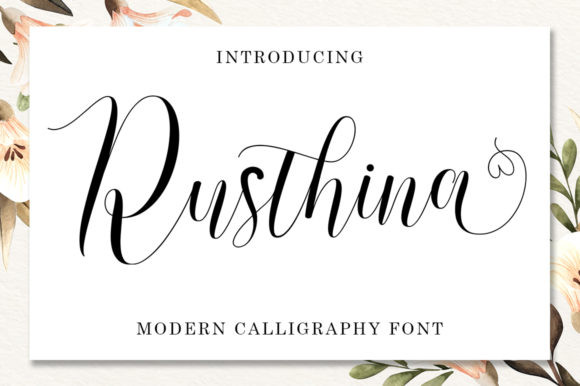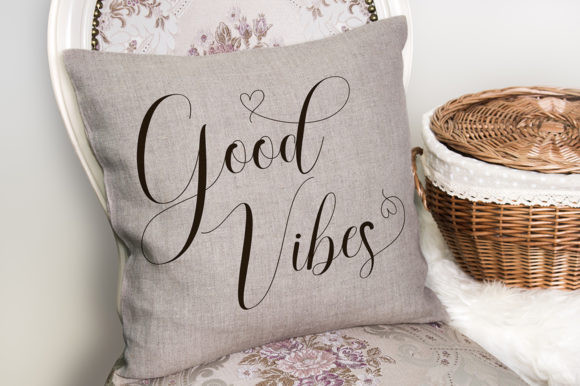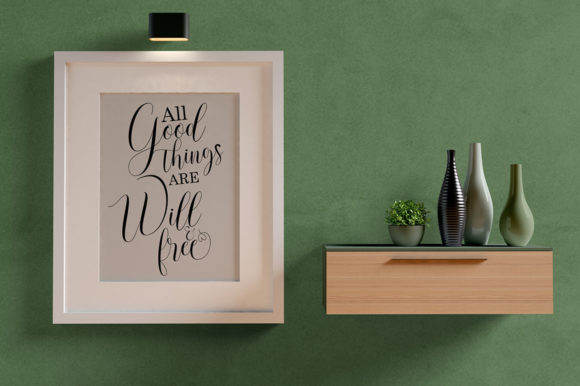
Rusthina Font
Rusthina is a sweet calligraphy script font, casual and dynamic with a dancing baseline. This font can be used easily for branding, logos, greeting cards, wedding invitations, quotes and so on.